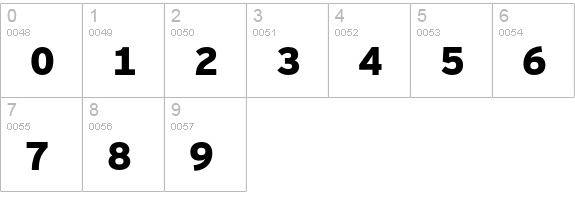
Interstate Mono - Blk Font Details
Interstate Mono - Blk is a sleek and modern font that exudes confidence and professionalism. Its bold and clean lines make it perfect for a wide range of design projects, from branding and advertising to web design and print materials. Designed with legibility in mind, Interstate Mono - Blk is easy to read even at small sizes. Its monospaced characters ensure consistent spacing between letters, allowing for improved readability and a more organized appearance. The versatility of Interstate Mono - Blk is further enhanced by its free availability. As a designer or creative professional, you can freely download this font at FontsMarket.com, allowing you to incorporate it seamlessly into your projects without any additional cost. Whether you're designing a sleek corporate website or creating eye-catching posters, Interstate Mono - Blk is the perfect companion. Its bold and commanding presence will draw attention and make a lasting impression on your audience. With its free availability, there's no reason not to take advantage of this versatile and stylish font. So download Interstate Mono - Blk today from FontsMarket.com and elevate your designs to the next level.